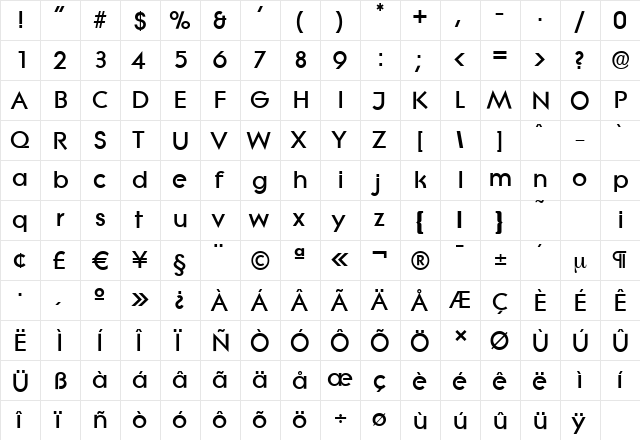
LiteraSerial-Heavy Regular
Design Context for LiteraSerial-Heavy Typeface
LiteraSerial-Heavy is a composed and adaptable typeface that performs quietly and consistently across a wide range of design contexts.